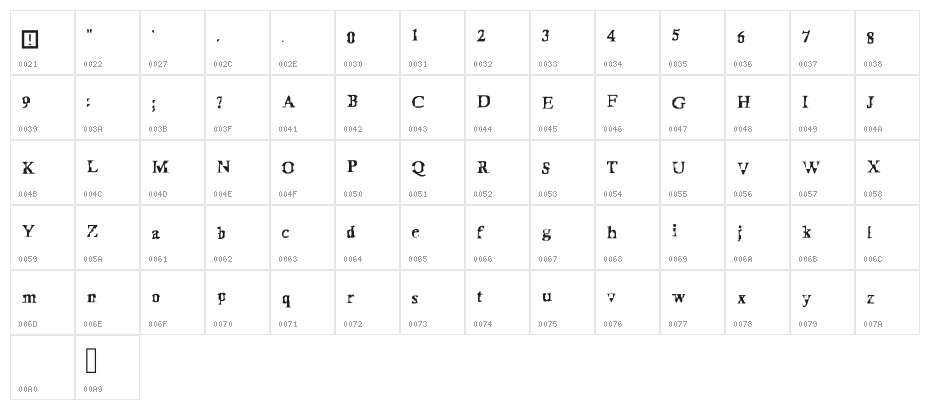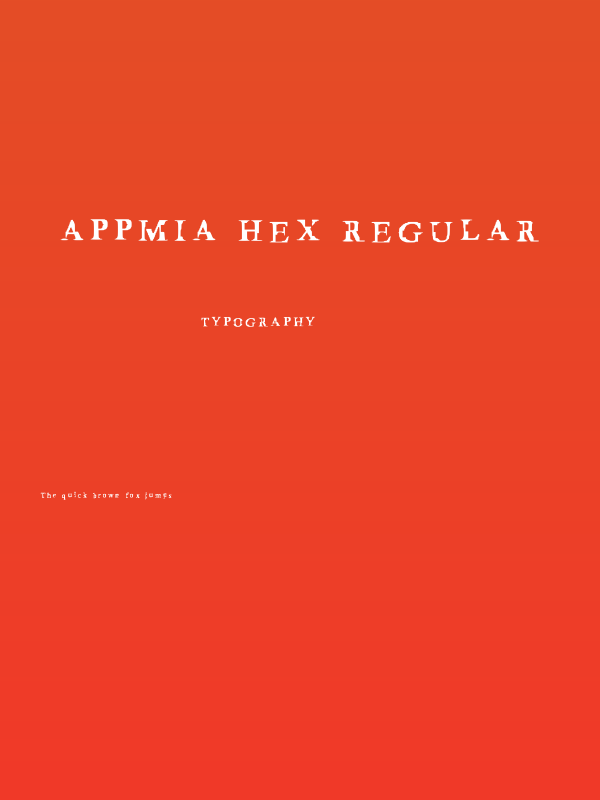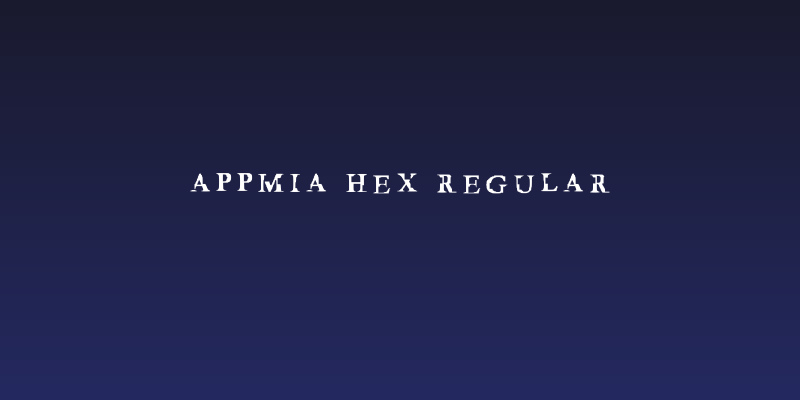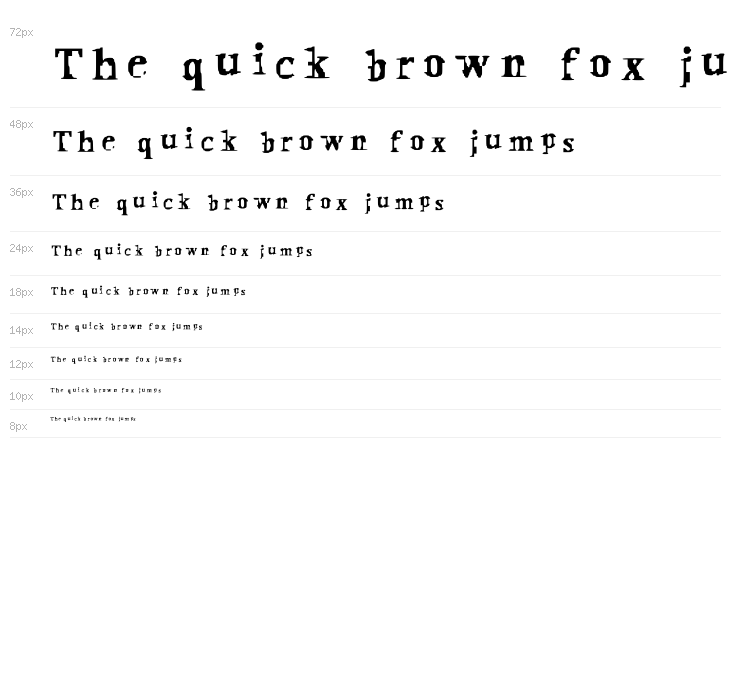
Appmia Hex Regular Font
Appmia Hex Regular Description
This font features a distinct and bold design with a slightly distressed appearance, giving it a vintage and rugged feel. The uppercase letters are characterized by sharp serifs and a slightly uneven texture, adding to its unique charm. The lowercase letters maintain a consistent style, with some characters like 'g' and 'y' having a more pronounced tail. Numbers are bold and clear, matching the overall aesthetic. Special characters are included, maintaining the same stylistic elements. This font is ideal for projects that require a touch of nostalgia or a handcrafted look.
| Proposed Projects | Ideal for vintage posters, branding, packaging, and any design requiring a rustic or handcrafted feel. |